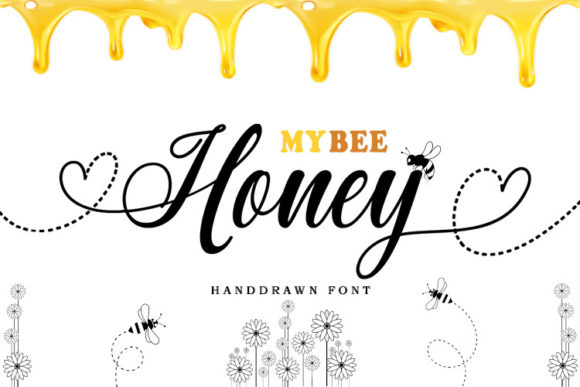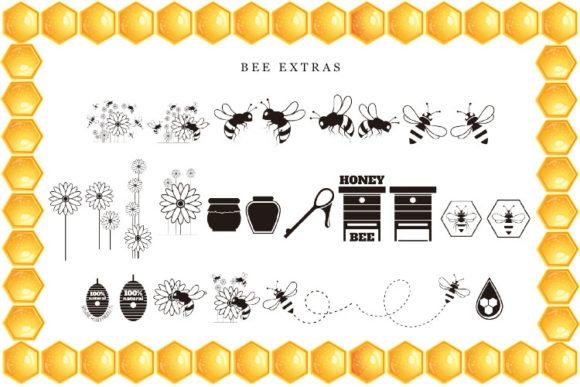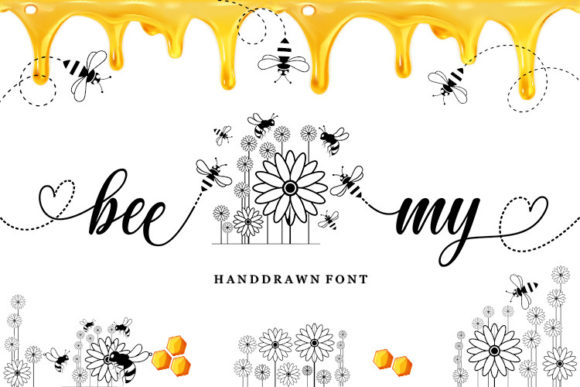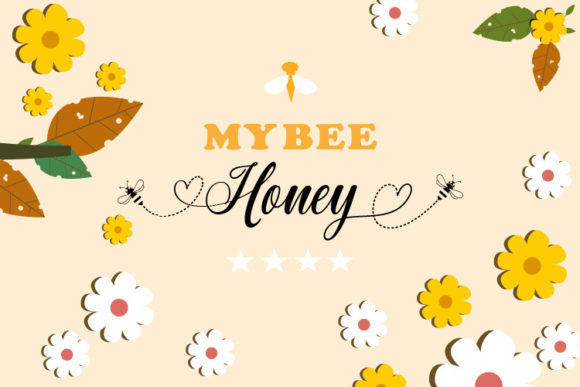
My Bee Honey Font
About the My Bee Honey Font
The My Bee Honey Font offers a perfect balance of form and function for your design needs. My Bee Honey is a distinct graceful script font. Fall for its ravishing style and use it to create gorgeous designs. This font is PUA encoded which means you can access all glyphs and swashes with ease!
My Bee Honey’s elegant, graceful style makes it ideal for projects requiring a touch of sophistication. It excels in branding applications such as logos, short taglines, and invitations, as well as headlines and short text blocks on posters or packaging. Avoid using it for body text or lengthy paragraphs; its script nature makes extended reading difficult.
The font’s inherent personality is refined and romantic, yet approachable. It pairs well with clean sans-serif fonts like Open Sans or Lato for a balanced contrast, or a geometric sans-serif such as Roboto for a modern feel. For a more luxurious effect, consider pairing it with a classic serif like Garamond or a subtly textured serif like Playfair Display.
For maximum impact, leverage My Bee Honey’s swashes and ligatures to add an extra layer of visual interest to your designs.
My Bee Honey Font Usage Examples
My Bee Honey Font Example